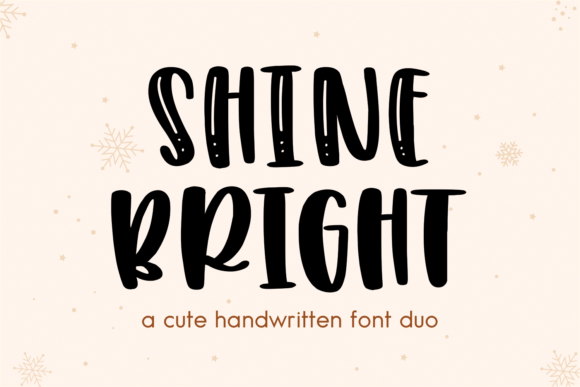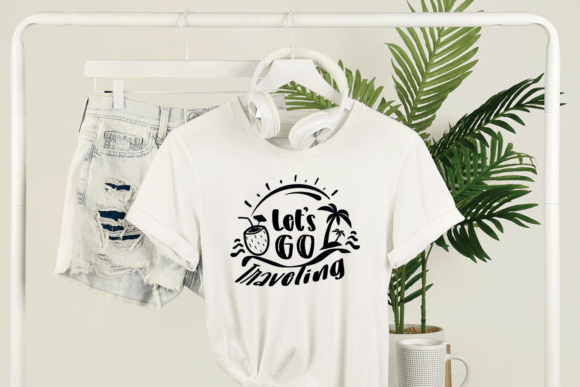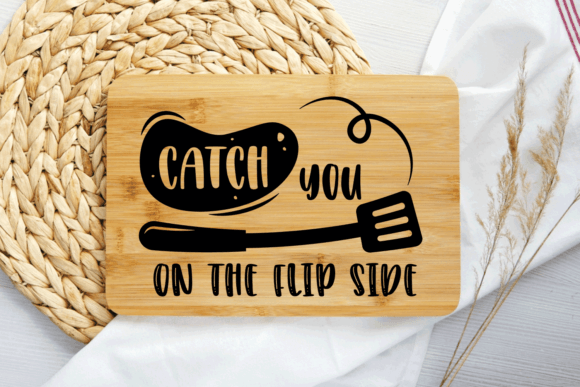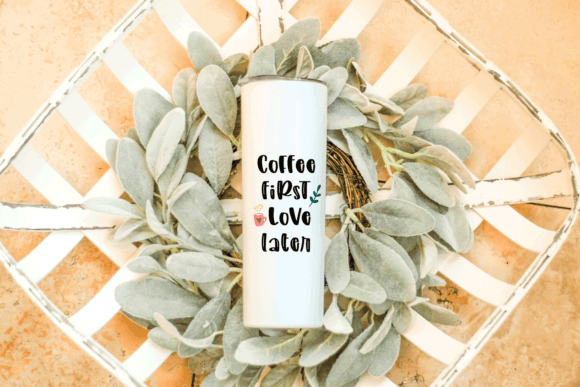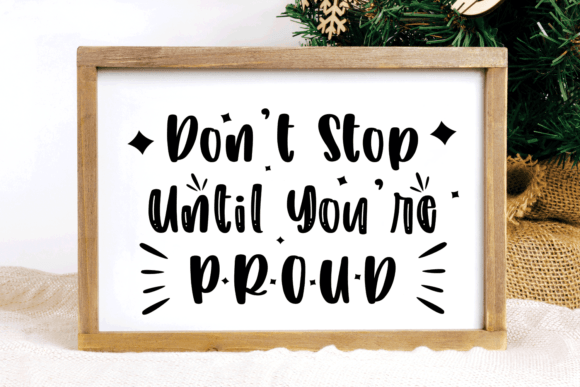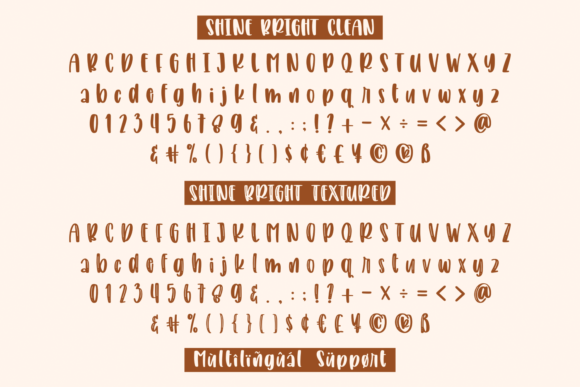
Shine Bright Font
Shine Bright is a fun and whimsical handwritten display font. No matter the topic, this font will be an incredible asset to your fonts’ library, as it has the potential to elevate any creation.